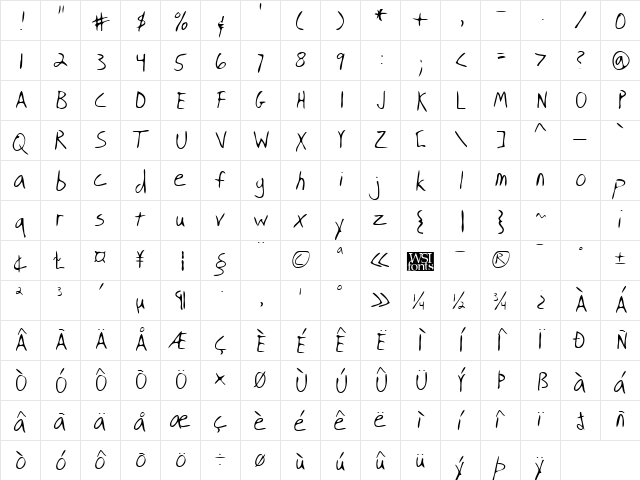
OlliesHand Regular
Design Context for OlliesHand Typeface
OlliesHand flows with the natural rhythm of handwritten lettering, making it ideal for designs that call for warmth and personal expression.
Font Pairing: Combine OlliesHand with a simple geometric sans for maximum contrast — the tension between flowing curves and clean structure is a classic typographic pairing.
Pro Tip: Pair OlliesHand with a clean sans-serif for supporting text. The contrast between fluid script and geometric structure creates an elegant typographic hierarchy.